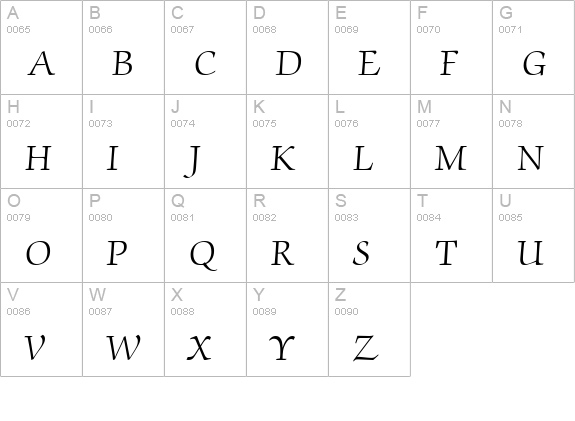
Chancery Script Light SSi Light Font Details
Chancery Script Light SSi Light is a refined, elegant variant in the Chancery typeface family \xE2\x80\x94 well suited to elegant body text, refined sub-headings, and luxury branding.
Chancery Script Light SSi Light font is an elegant and sophisticated typeface that exudes charm and grace. Its graceful strokes and intricate details make it perfect for adding a touch of class to your designs. This delicate font is ideal for wedding invitations, formal announcements, and any project that requires a touch of refinement. The best part is that Chancery Script Light SSi Light font is available for free download at FontsMarket.com. So you can easily access this beautiful typeface and enhance your projects with its timeless appeal. Embrace the beauty of Chancery Script Light SSi Light font and elevate your designs to new heights of elegance.